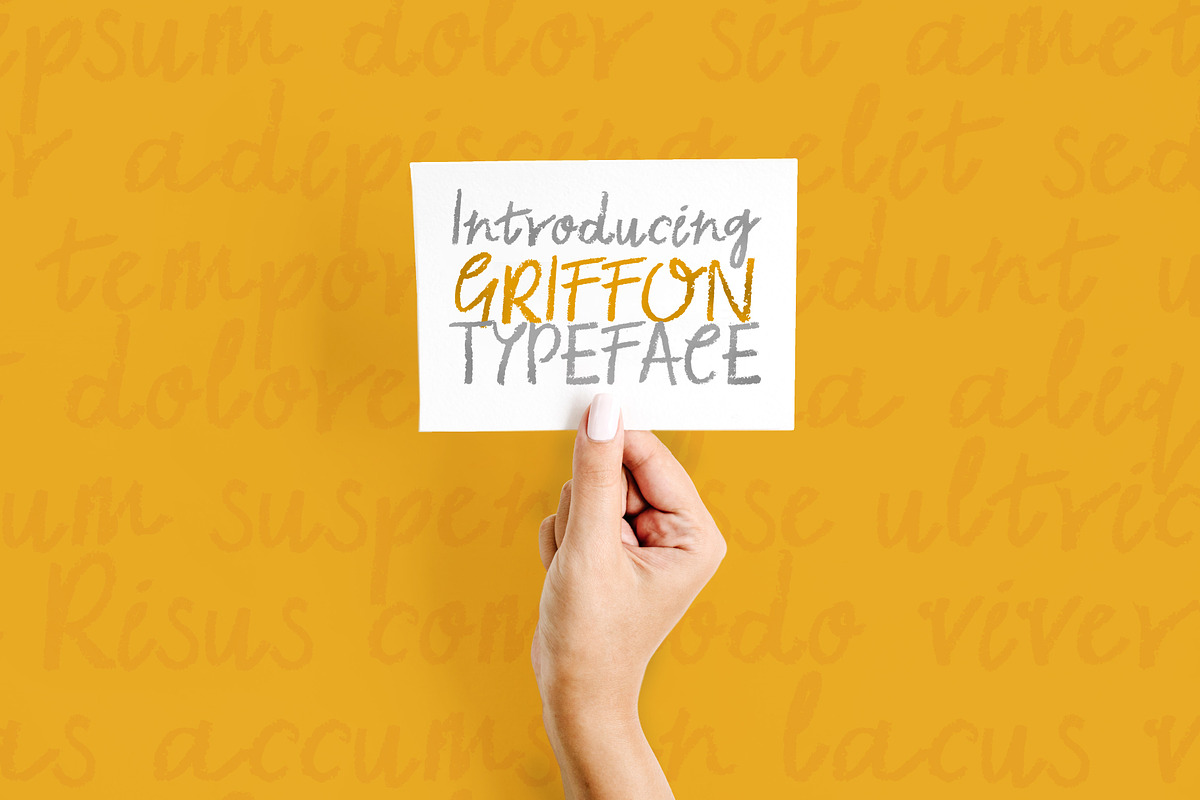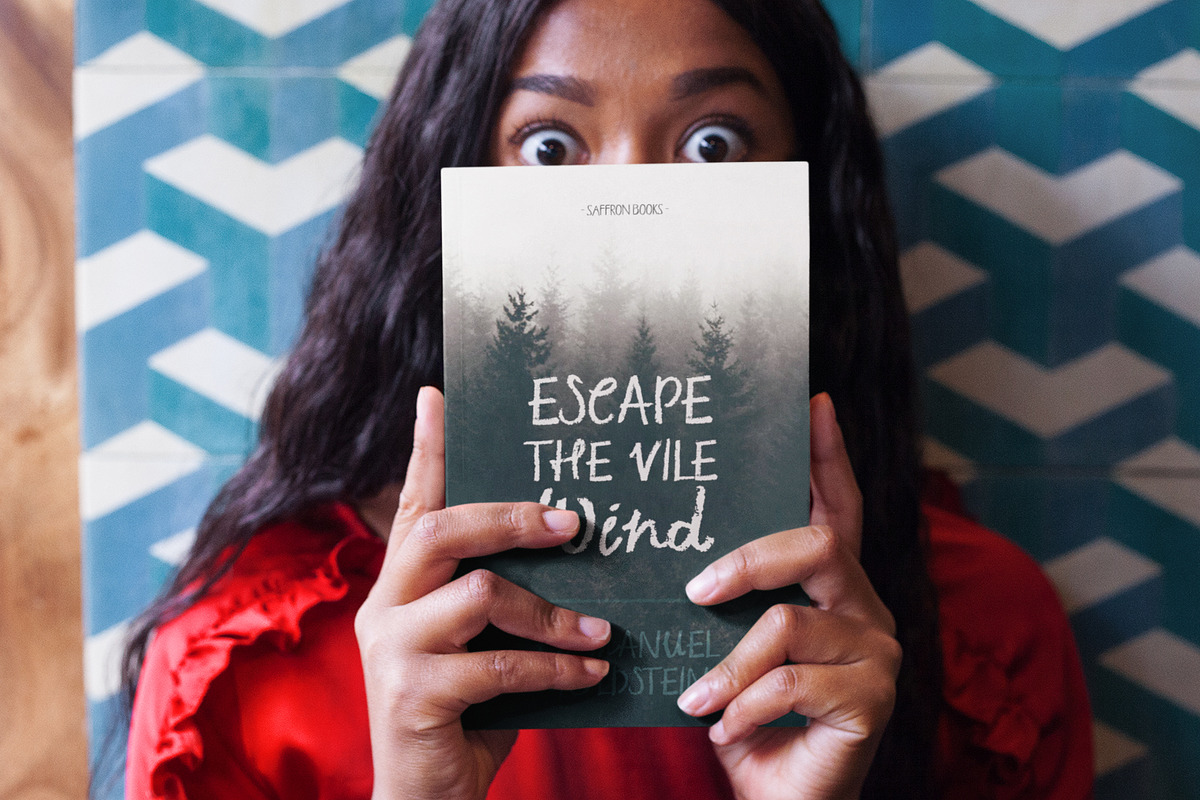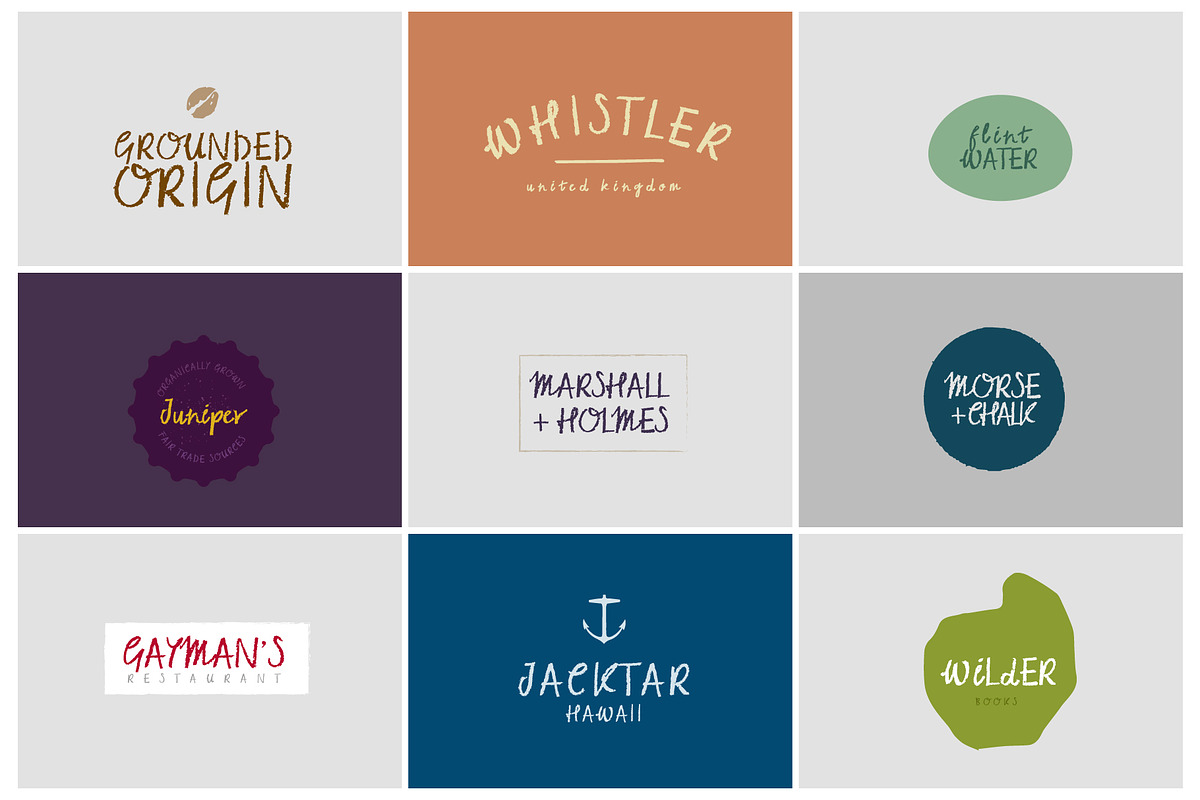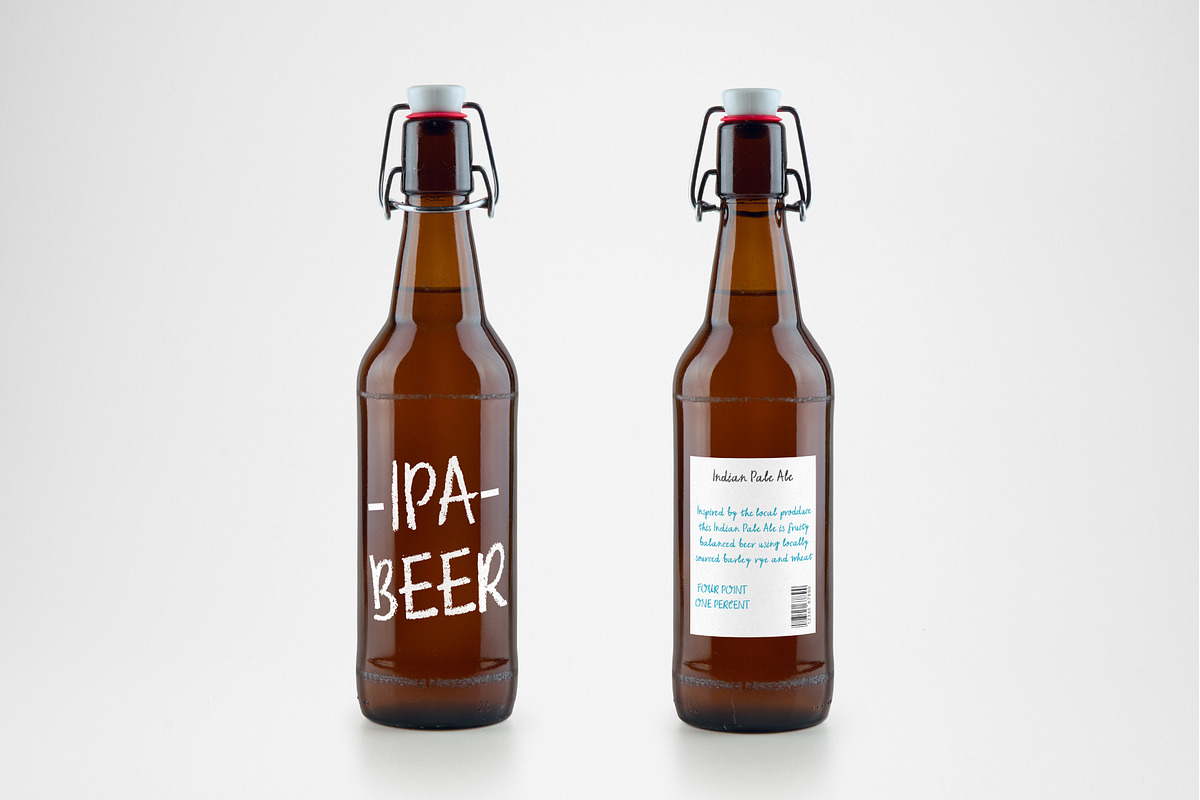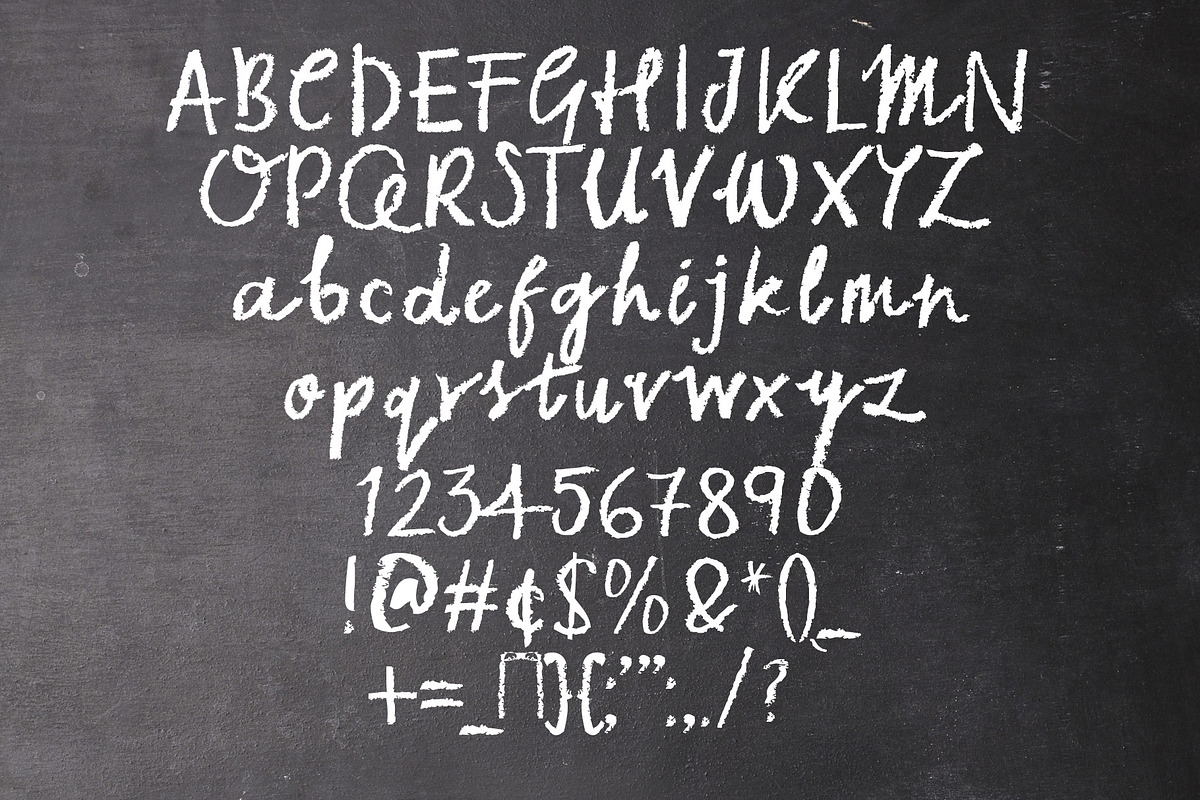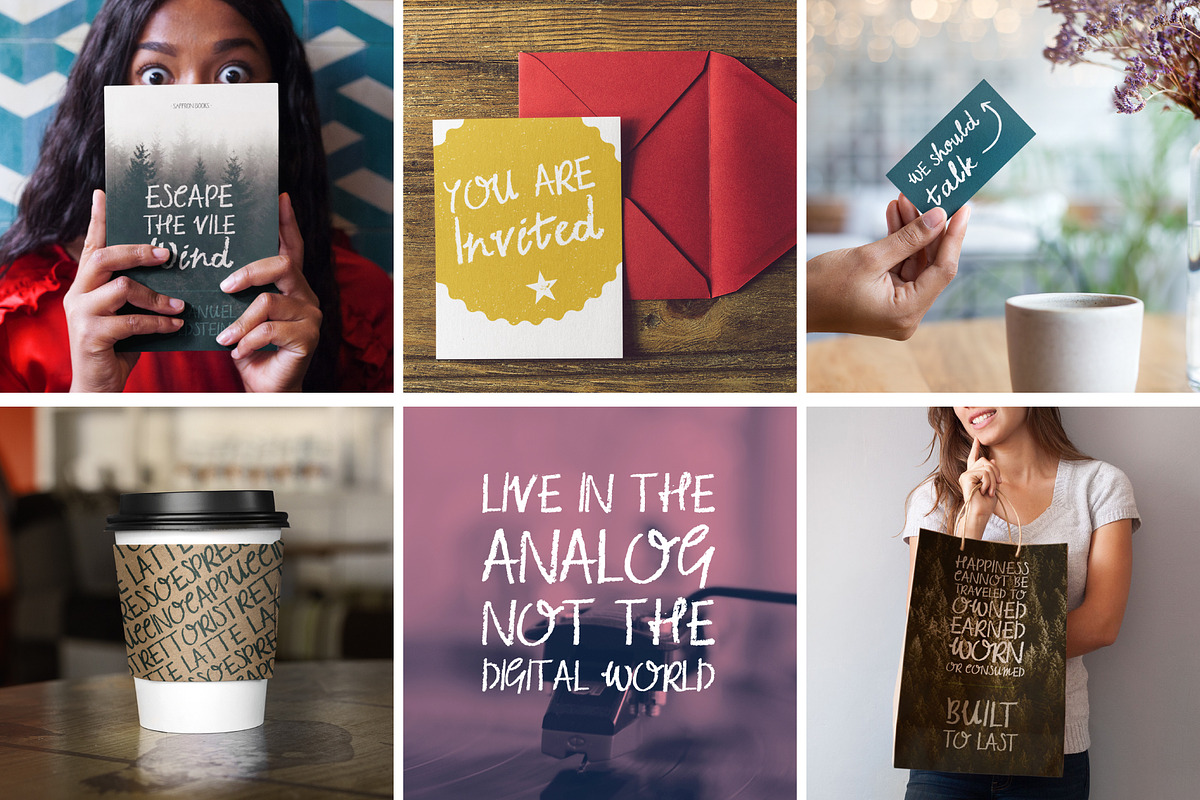
Griffon Chalk Font | Bold Hand Font
Griffon Chalk Font is a fun and textured chalk-style typeface designed to give your projects a rustic, handmade feel. Perfect for everything from café menus, signage, posters, or playful branding, Griffon adds a hand-drawn, organic touch to your designs.
With its rough, chalky strokes and bold presence, Griffon Chalk Font brings the charm of traditional chalkboards into the digital world. Whether you’re working on vintage-inspired projects or modern playful designs, this font is a perfect fit for your creative needs.
Uppercase and lowercase letters
Numbers and punctuation
Griffon’s bold chalk texture makes it ideal for any project that needs a handmade, tactile aesthetic.